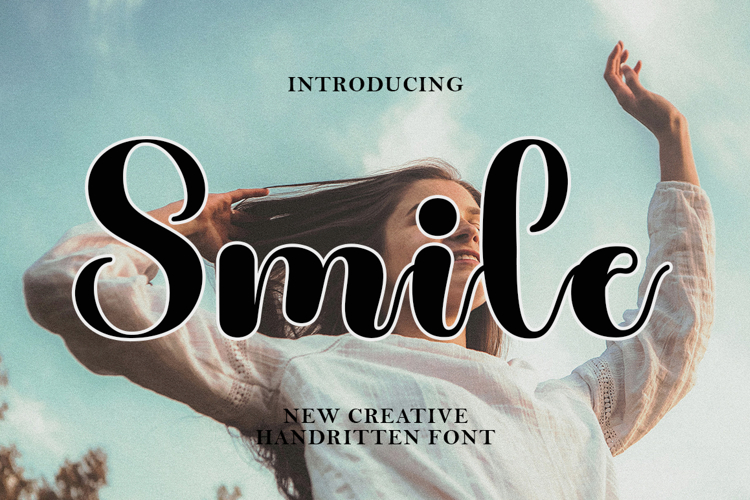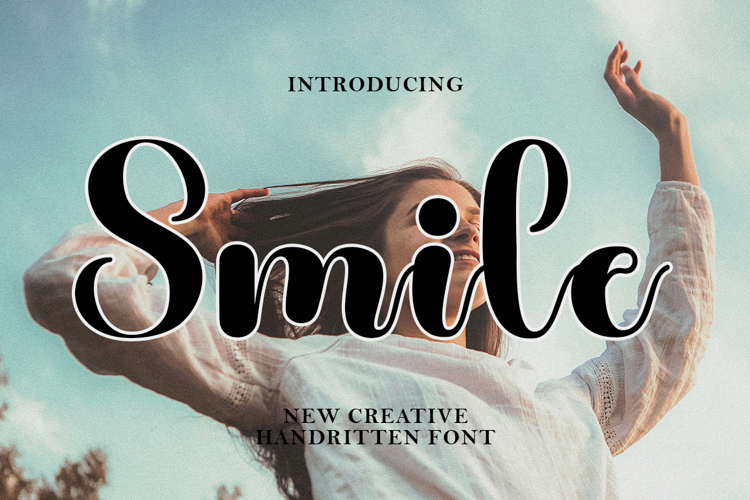
Smile
SMILE
Smile is a handwritten font featuring exquisite character changes, a classic decorative copperplate script with a modern twist, meticulously designed for an elegant style.
Smile is appealing because it's smooth, clean, feminine, sensual, glamorous, simple, and highly legible, thanks to its many luxurious letter connections. This classic style is perfect for various formal applications such as invitations, labels, restaurant menus, logos, fashion, makeup, stationery, novels, magazines, books, greeting/wedding cards, packaging, labels, or any type of advertising needs.